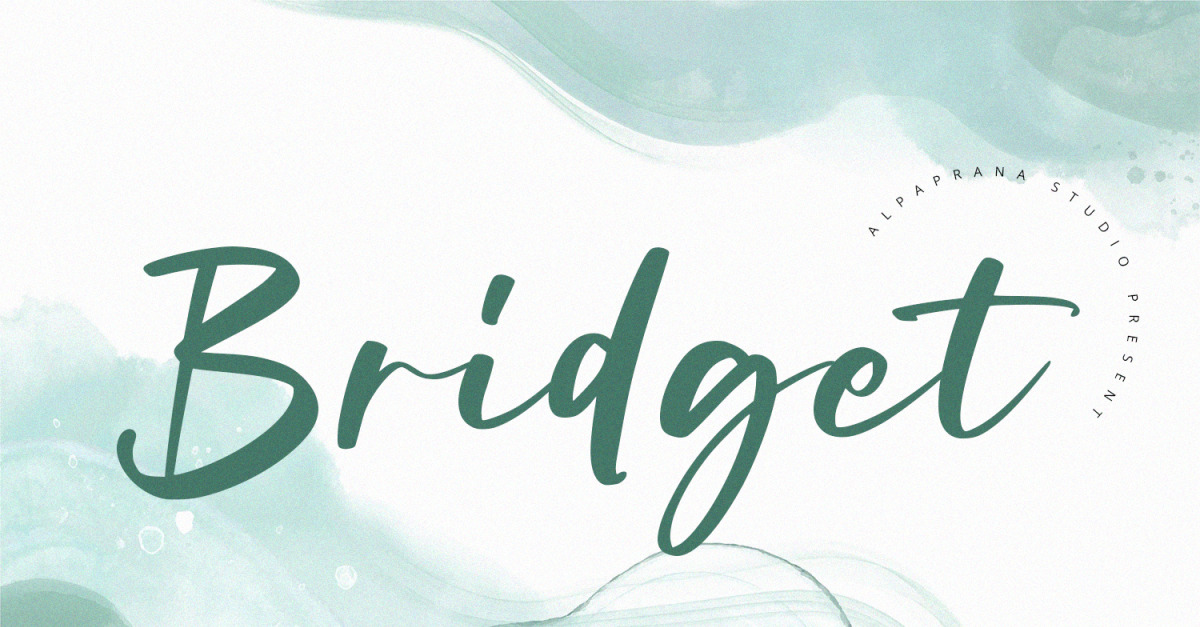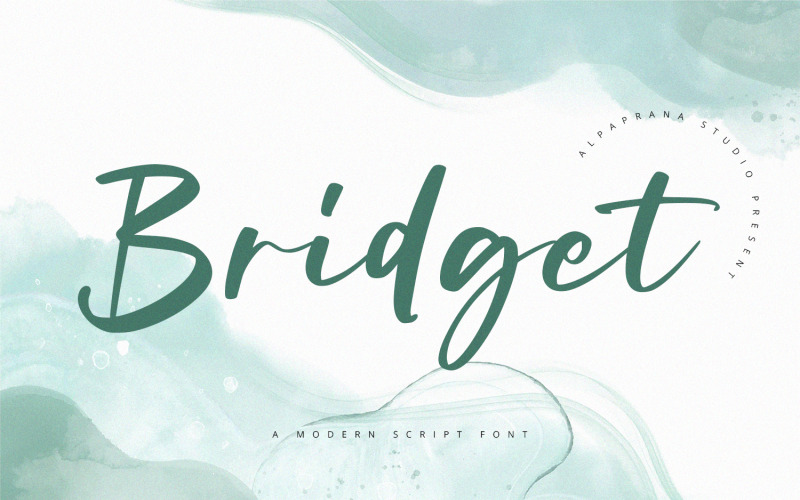
Bridget - Modern Script Font
Bridget Script is a modern script font with natural and clasic feels. It will be perfectly used for Branding, Logo Design, Lettering, Logotype, Clothing, Poster, magazine, packaging, posters, shopping bags, t-shirts, book covers, photography, special events and other design project.